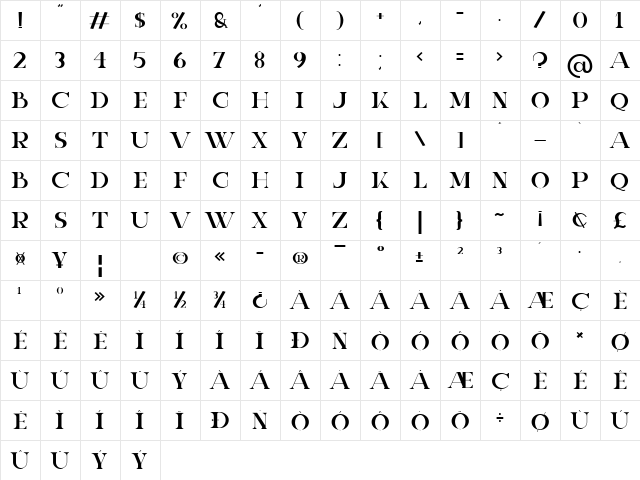
VOQUES Personal Use Regular
| Foundry | FallenGraphic . 2019. |
| Designer | Vava Aryanto |
Design Context for VOQUES Personal Use Typeface
VOQUES Personal Use takes a measured approach to typography — its balanced proportions and neutral character make it a reliable workhorse for both digital and print work.